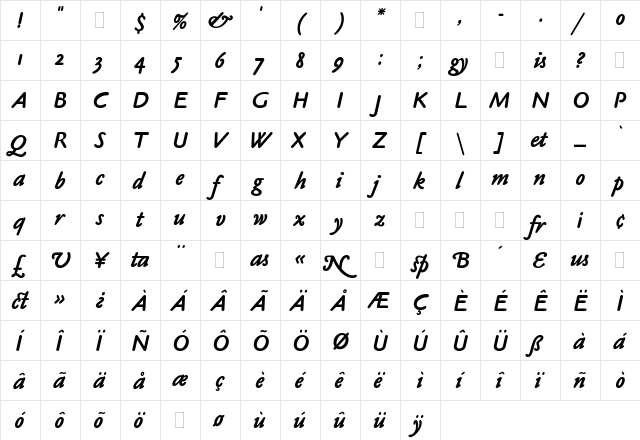
ClaudeSansBoldItalicPlain Regular Font Preview
Design Context for ClaudeSansBoldItalicPlain Typeface
ClaudeSansBoldItalicPlain offers clean, dependable letterforms without strong stylistic allegiance, making it a practical choice for designers who need flexibility. The dynamic lean of this cut emphasises speed and emphasis in any layout. Its bold stroke weight gives it real presence on the page.
Pro Tip: Try ClaudeSansBoldItalicPlain for annotation and caption copy alongside an upright companion — the contrast in angle creates a dynamic but ordered typographic system.